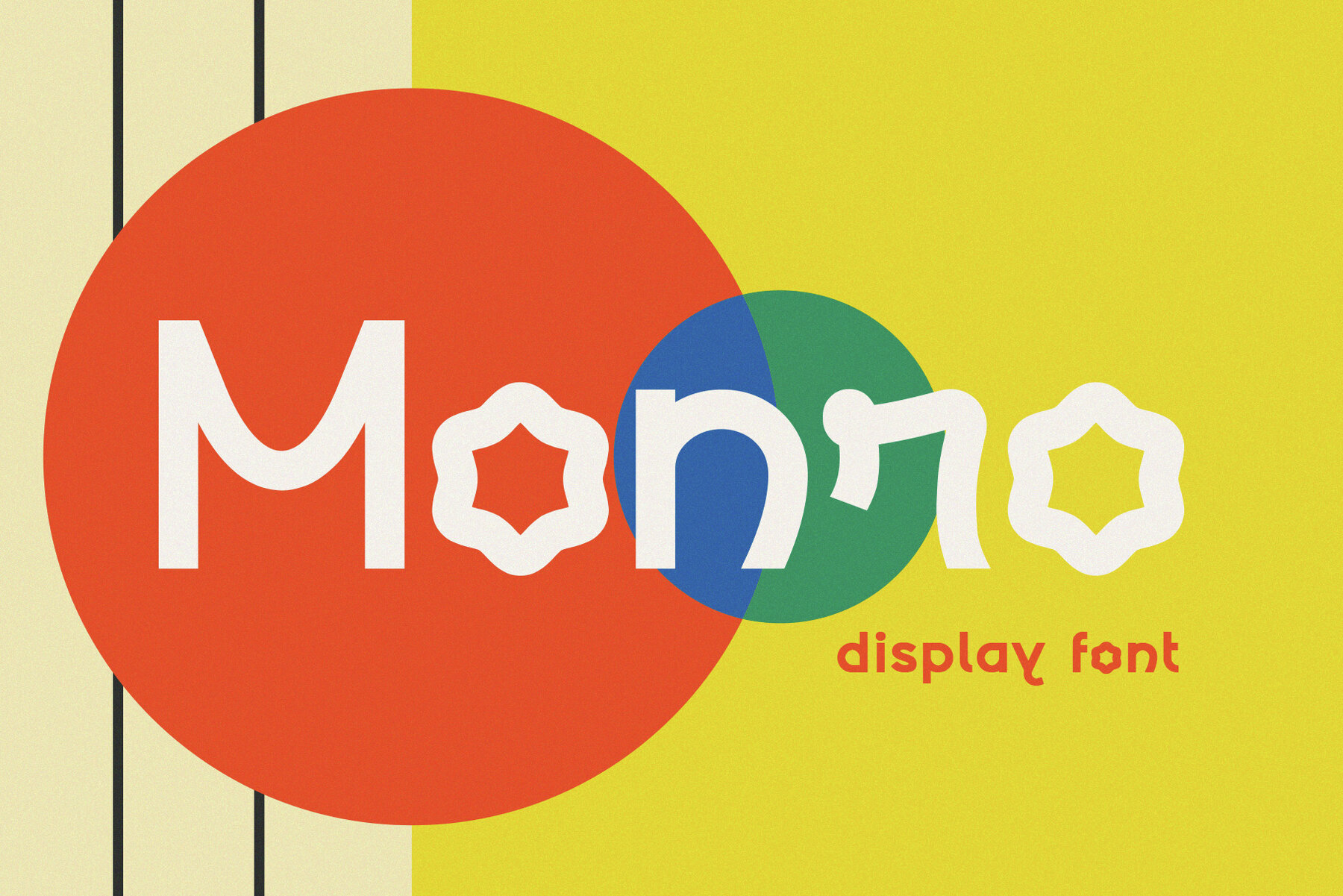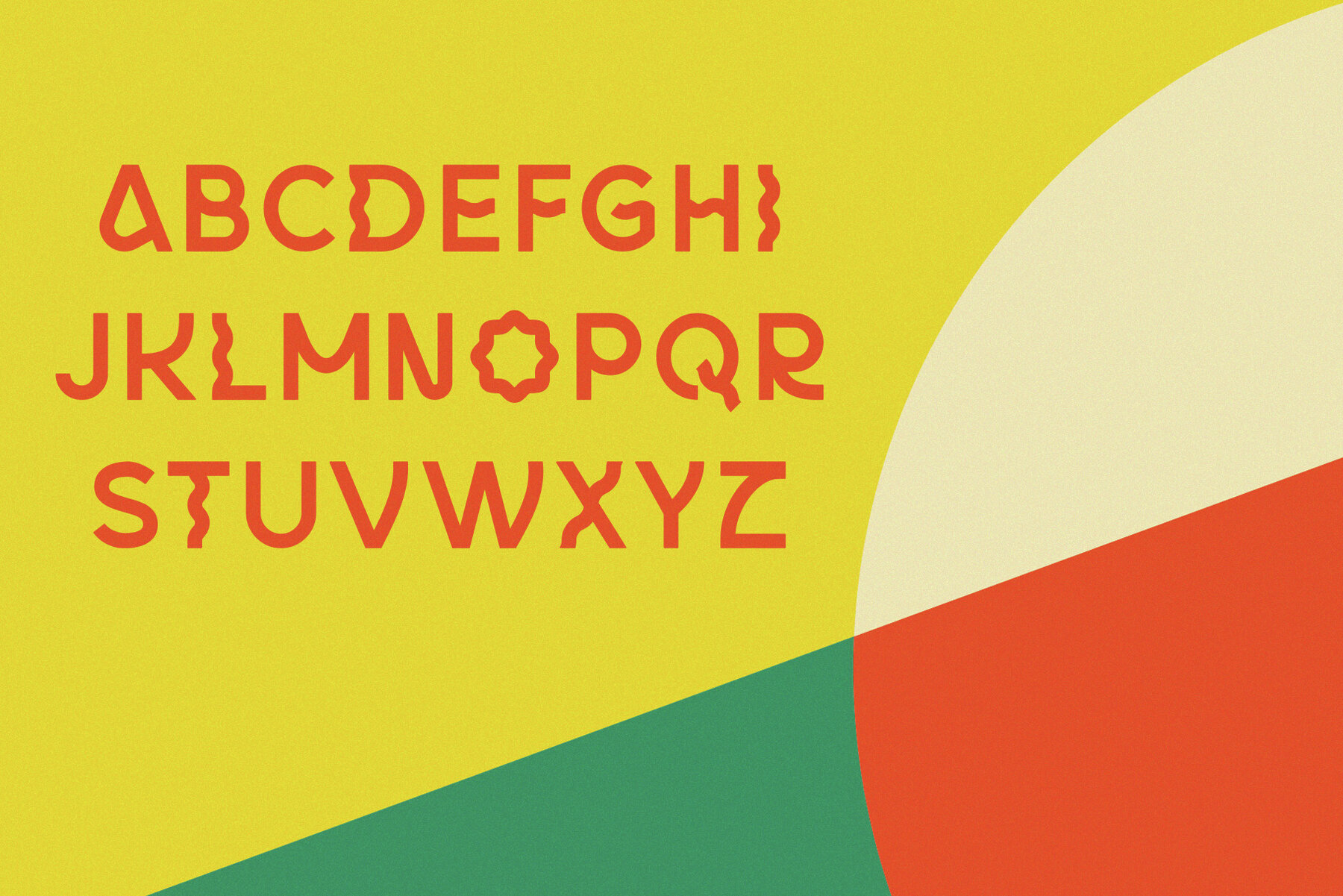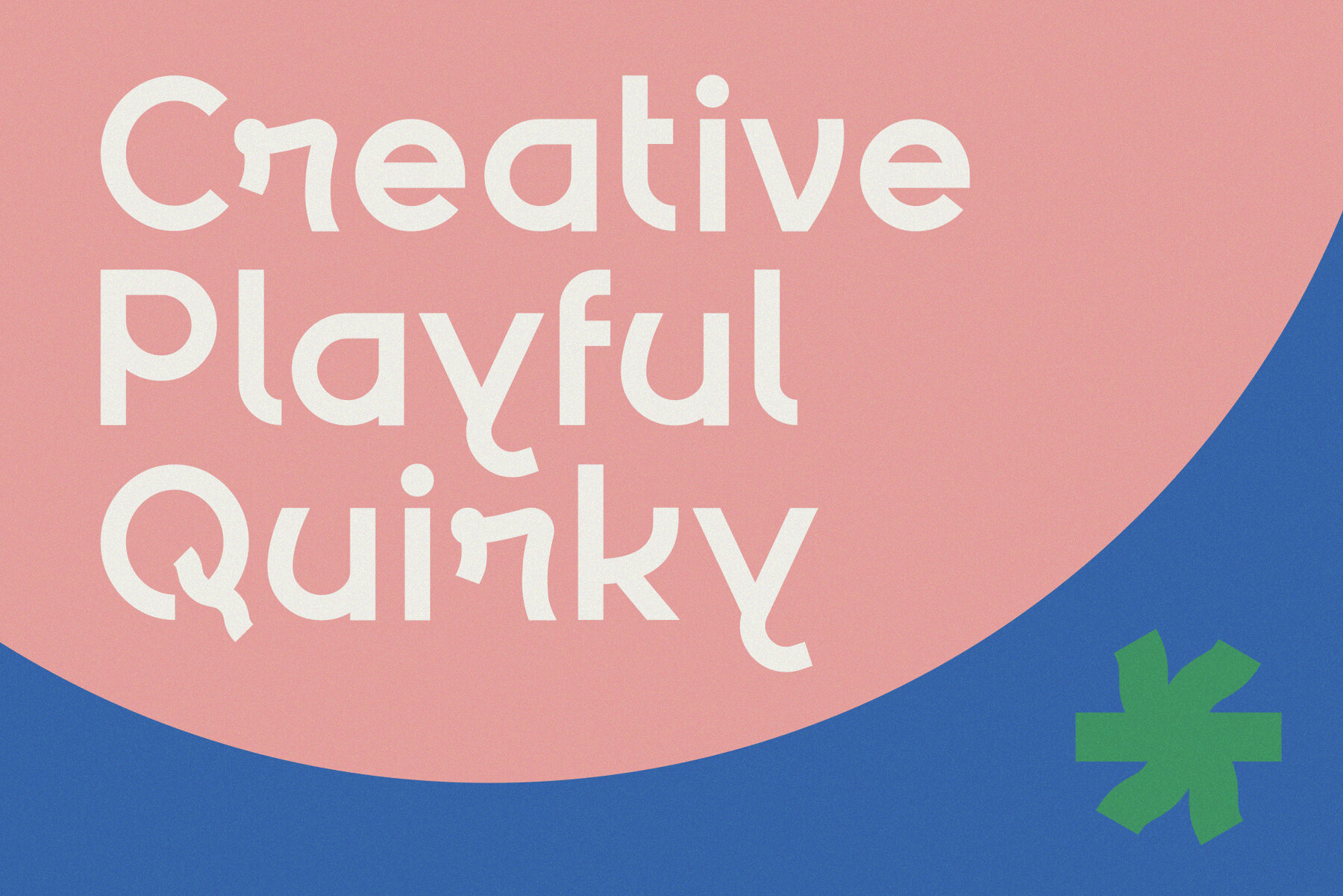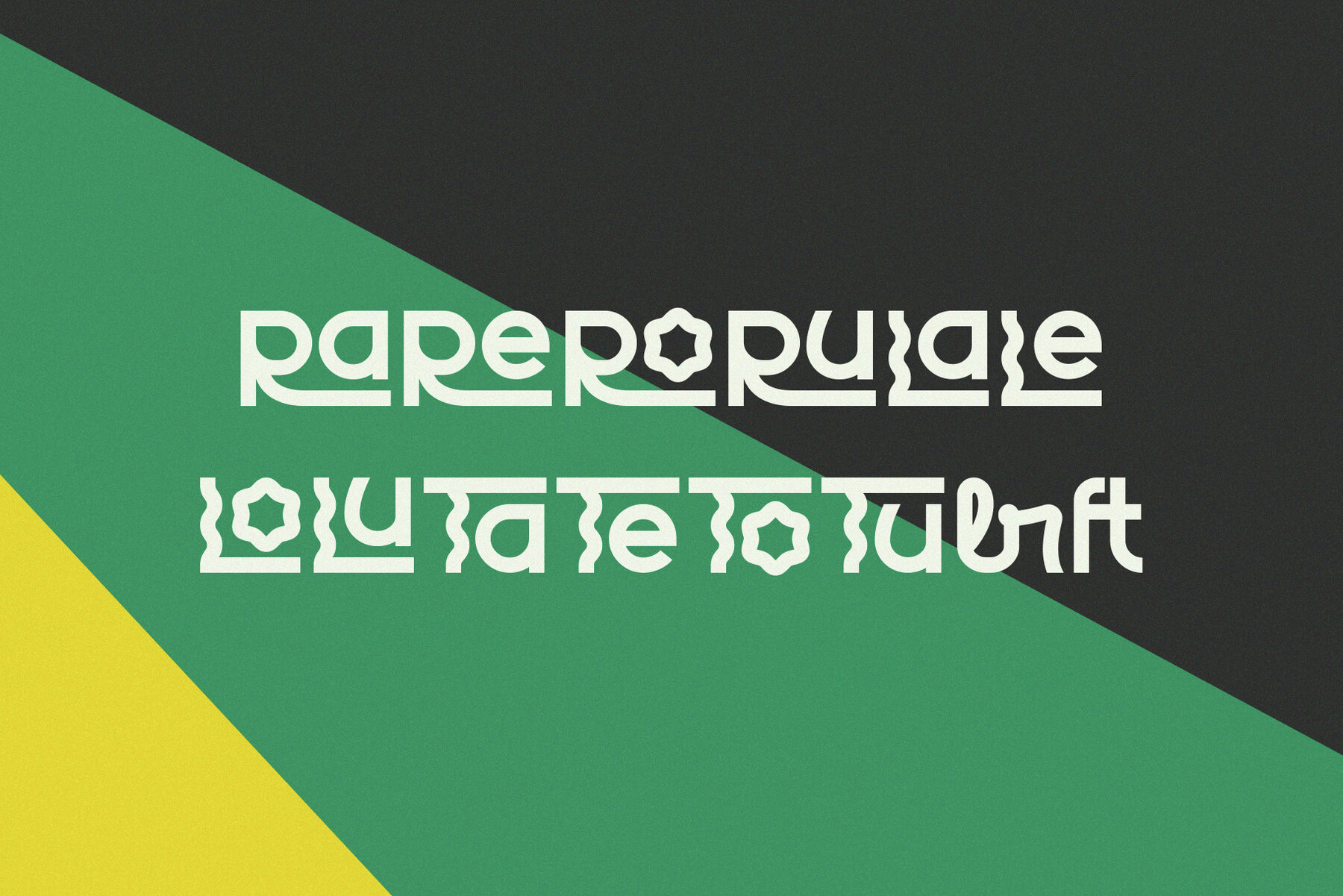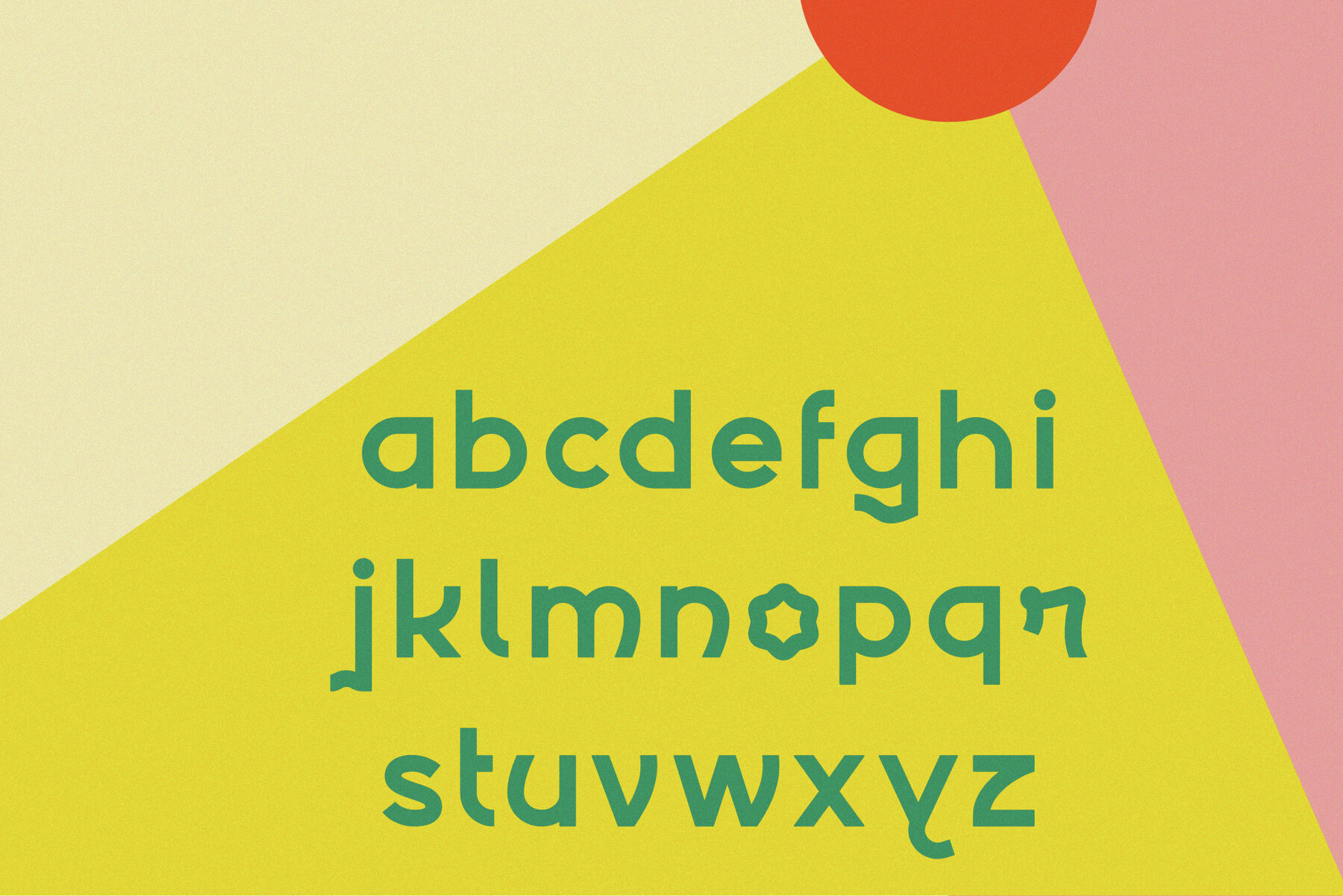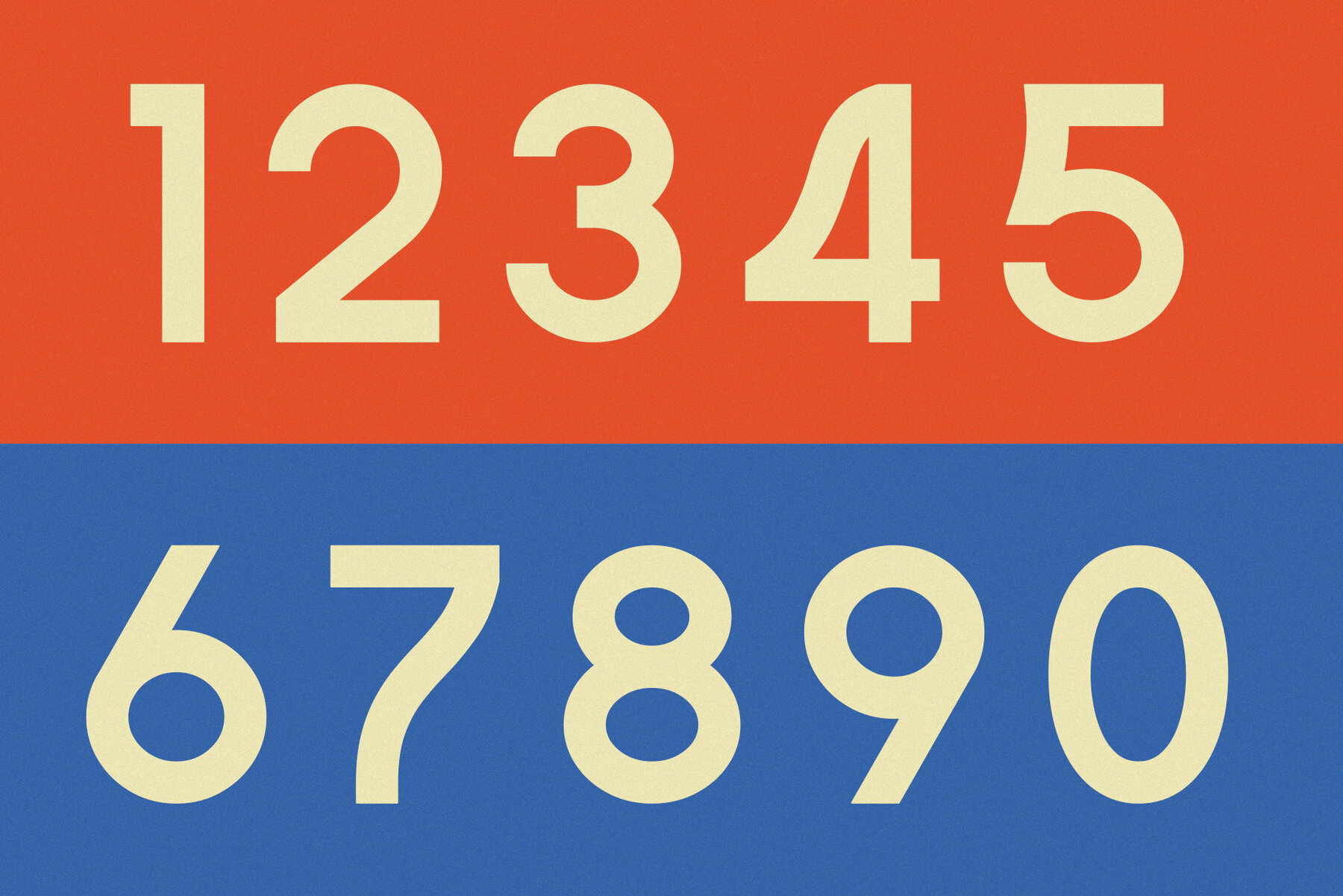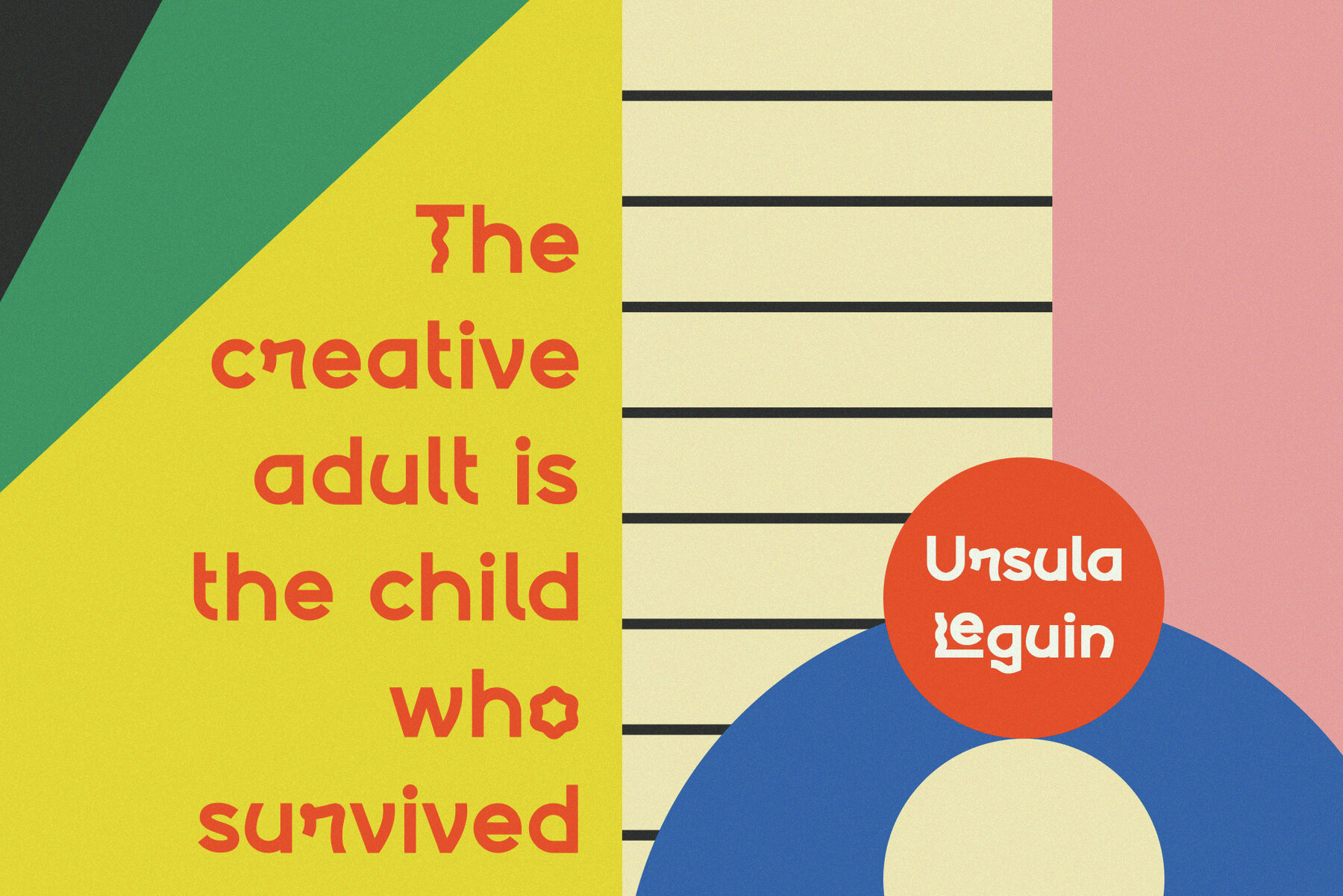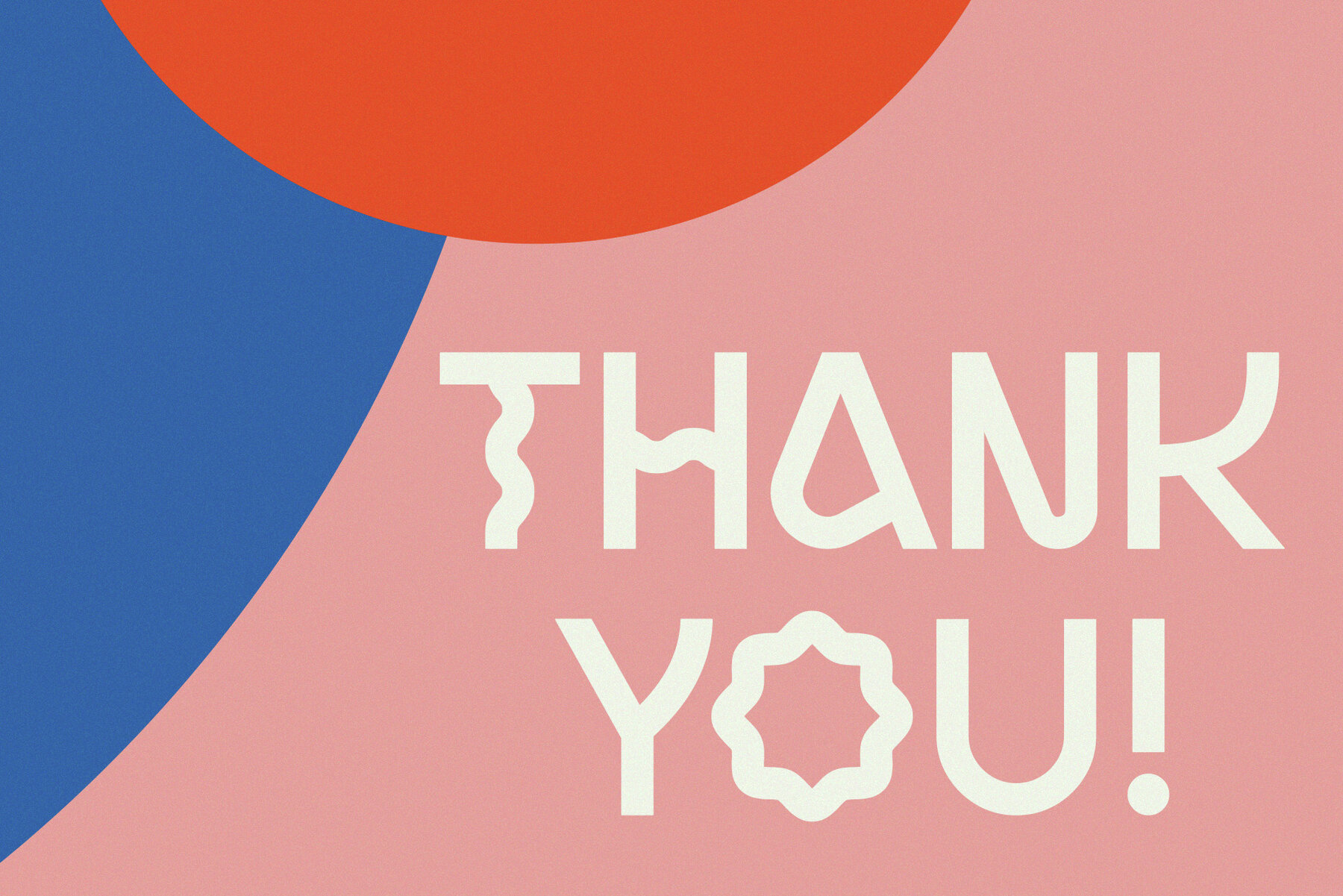
Monro Font
Monro Regular
Introducing Monro, a disruptive typeface with shapes inspired by the aesthetics of the 80s and 90s. Monro is an ideal typeface for large size display texts and wordmarks, its eye-catching quirky letters grab the readers attention and makes them notice the message being sent across. The font is also perfect for contemporary branding, social media, flyers, headlines, magazines, and more. If you're searching for a geometric typeface that offers versatility as well as a clean/sleek build, then Monro is for you.